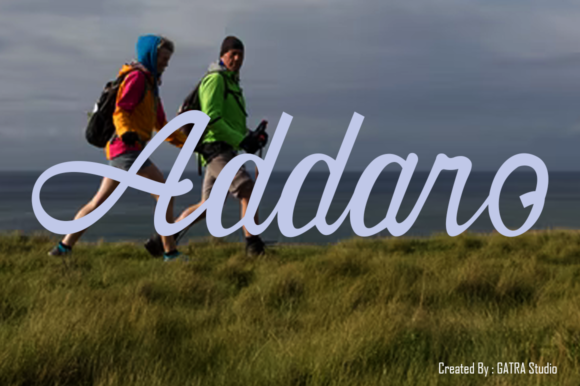
The Designer’s Delight: Uncovering the Charm of Addaro Font
I’ll never forget the time I was working on a logo design project for a boutique client, and I was stuck on finding the perfect font. The client wanted something elegant, yet playful, and I was determined to deliver. After hours of scouring through font libraries, I stumbled upon Addaro Font, and it was love at first sight! 💕 In this article, I’ll share with you why Addaro Font has become a staple in my design toolkit and how you can make the most of its beautiful features.
An Honest Review of Addaro Font
What I Love About Addaro Font
• ✨ Lovely and timeless handwritten feel that adds a touch of elegance to any design
• 💫 Perfect for creating eye-catching logos, branding, and quotes
• 🎨 Highly versatile and can be used for a wide range of design projects
While Addaro Font is an amazing font, there are a few things to keep in mind:
• 🤔 Some users may find the font a bit too ornate for certain design projects
• ⚠️ May not be suitable for body text due to its decorative nature
The Story Behind Addaro Font
Addaro Font was designed with the intention of creating a beautiful, handwritten font that captures the essence of elegance and sophistication. The designer aimed to create a font that’s both timeless and versatile, perfect for a wide range of design projects. While the designer’s story may be shrouded in mystery, one thing is certain – Addaro Font has become a beloved font among designers and crafters alike!
Q: Is Addaro Font suitable for body text?
A: While Addaro Font is beautiful, it’s not ideal for body text due to its decorative nature. It’s best used for headings, titles, and quotes.